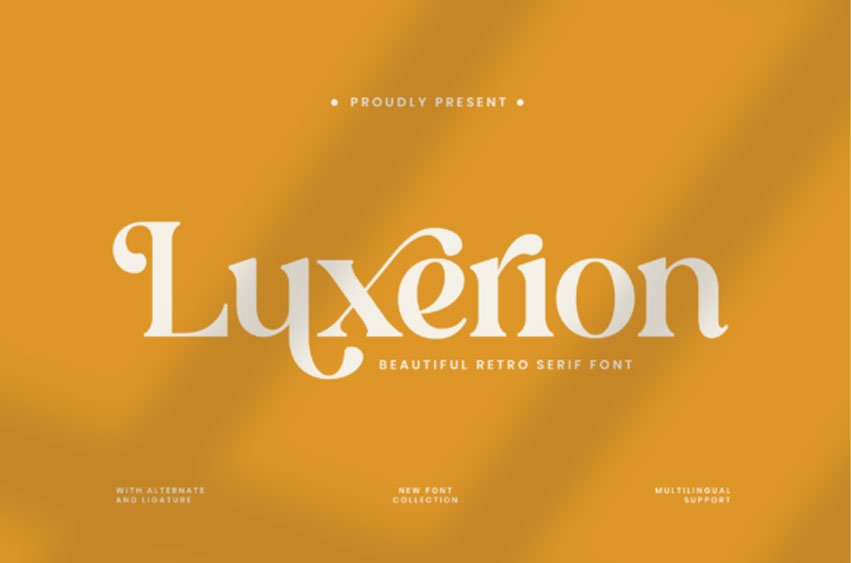
Luxerion Font is a beautiful retro serif typeface that blends nostalgic charm with timeless elegance. Inspired by classic vintage aesthetics and refined modern touches, Luxerion brings sophistication and warmth to every design it graces.
With graceful curves, stylish ligatures, and beautifully balanced letterforms, Luxerion is perfect for logos, branding, packaging, editorials, or social media designs that aim to capture both luxury and creativity.